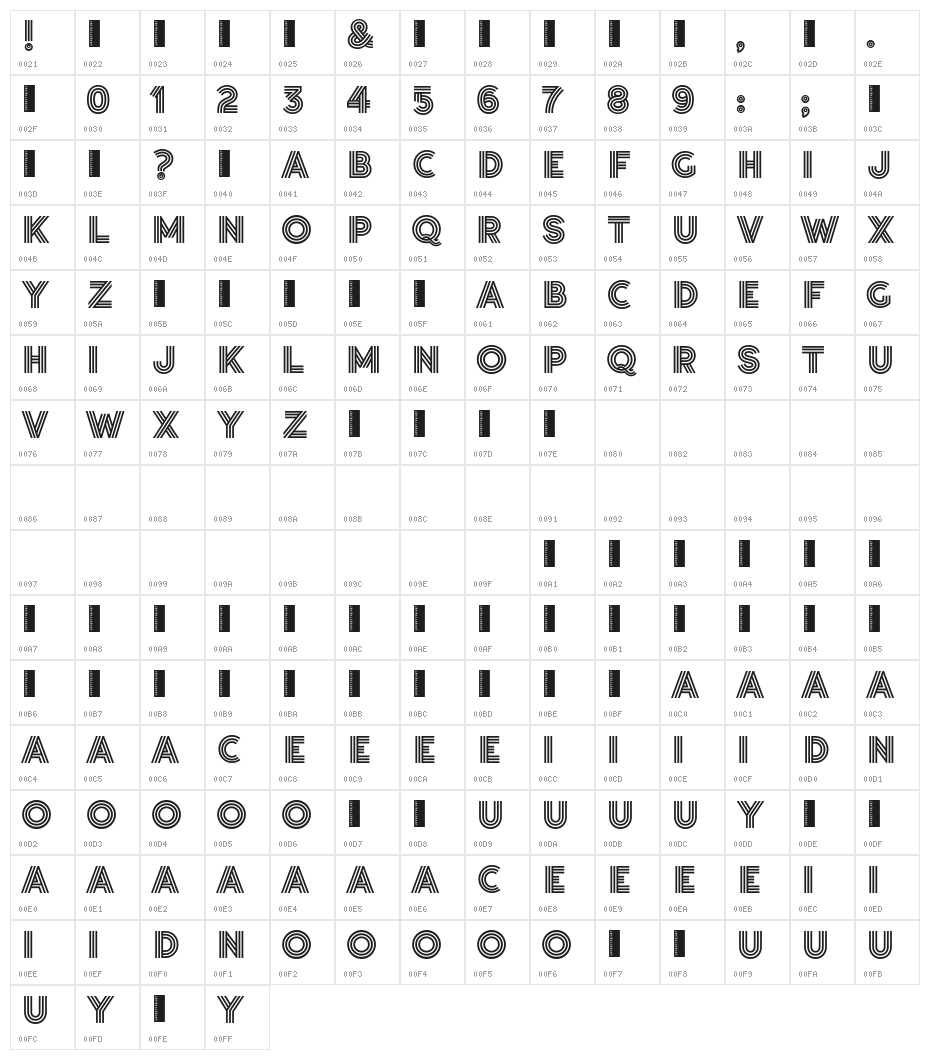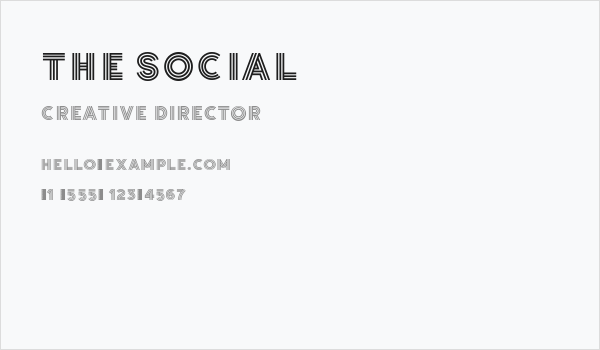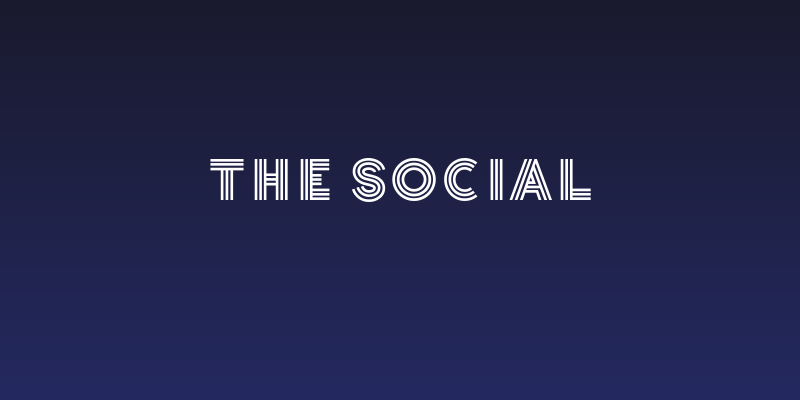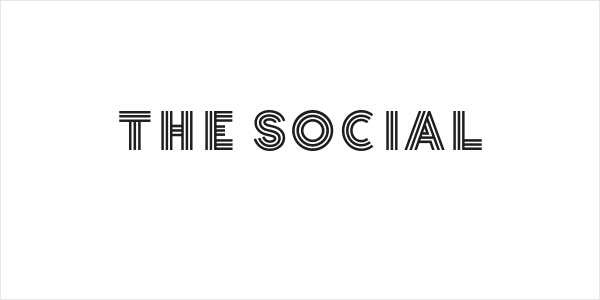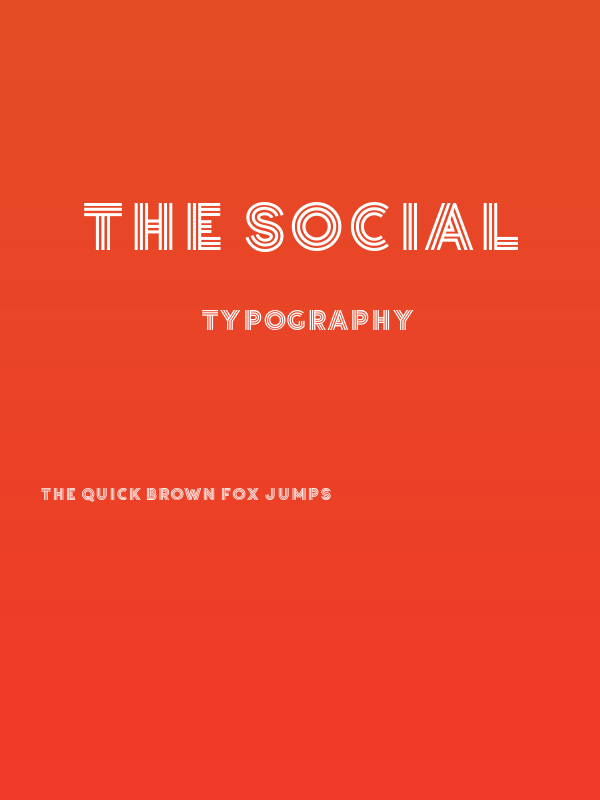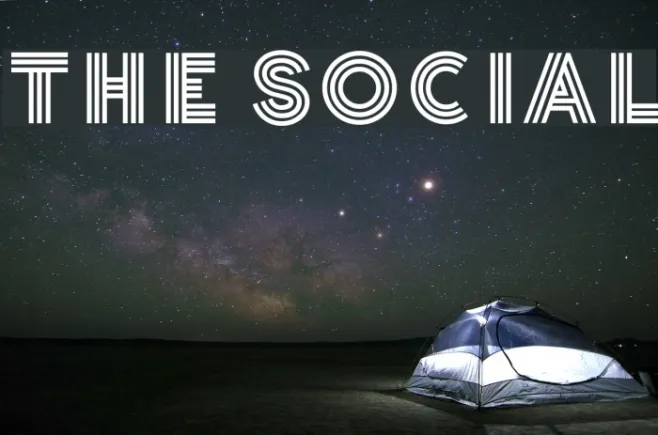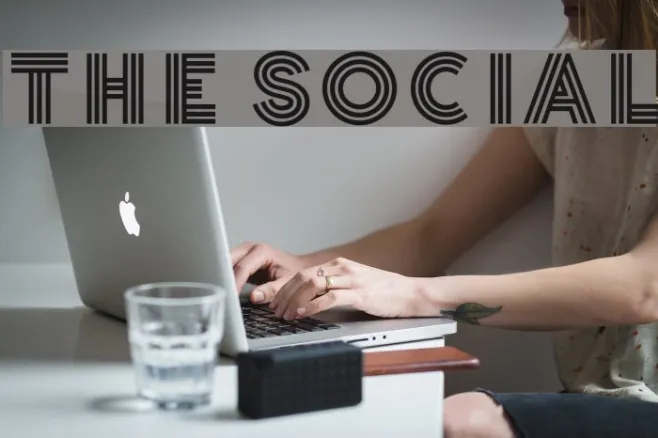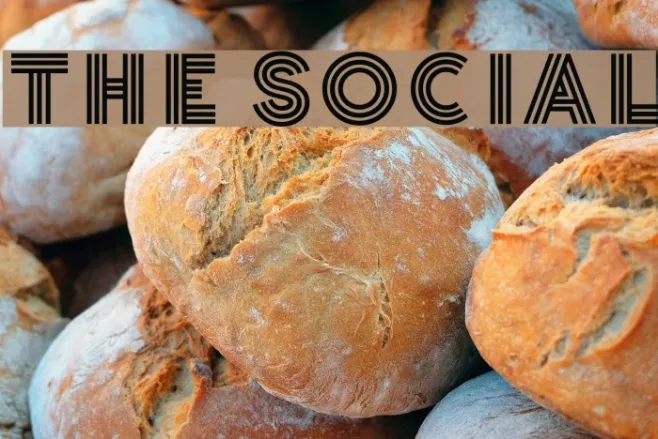
THE SOCIAL Font
THE SOCIAL Description
This font features a bold and striking design with multiple parallel lines forming each character, creating a sense of depth and dimension. The uppercase letters are uniform in height, while the lowercase letters maintain a consistent style, offering a cohesive look. The numerals and special characters follow the same multi-line pattern, ensuring a harmonious appearance across all glyphs. The font's geometric structure and clean lines make it ideal for modern and eye-catching designs.
| Proposed Projects | Ideal for branding, posters, headlines, and any project requiring a modern and impactful visual presence. |